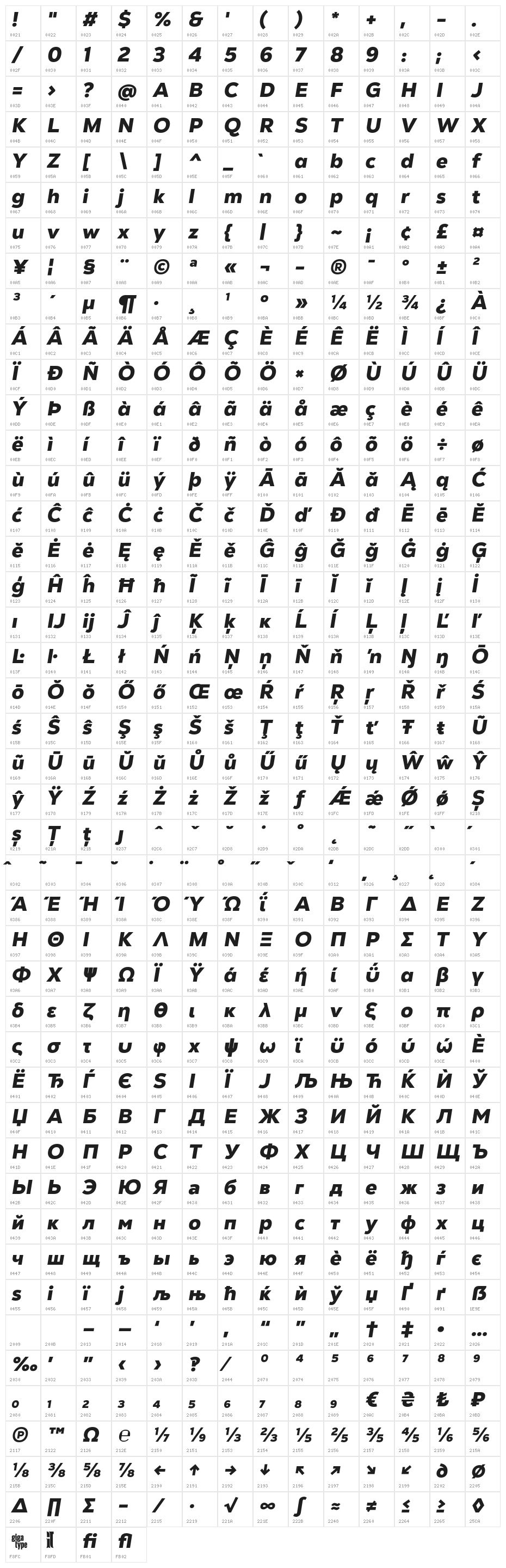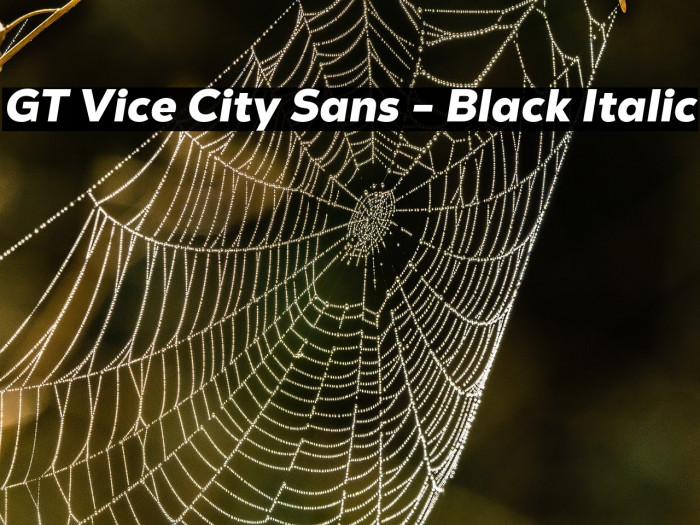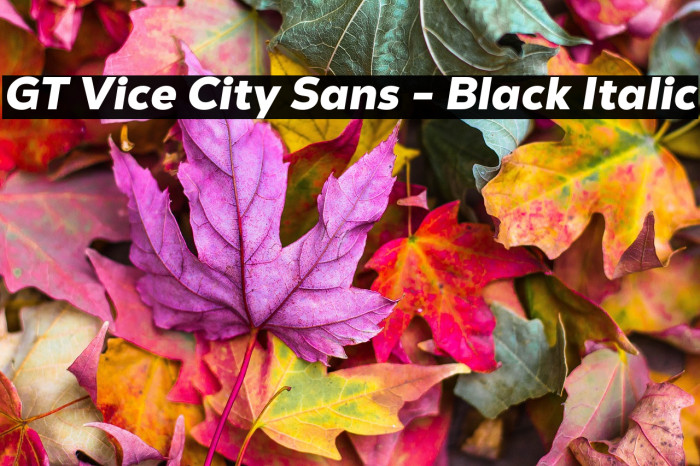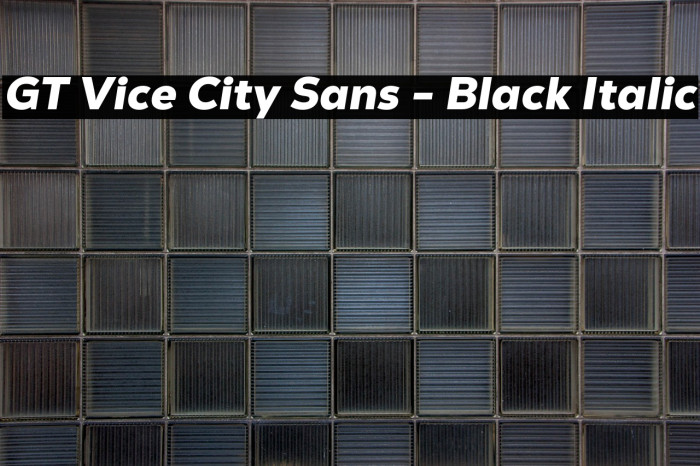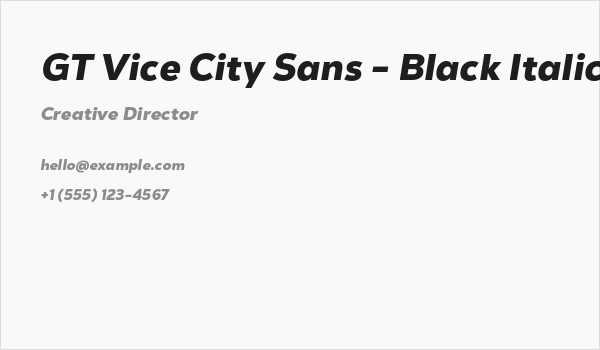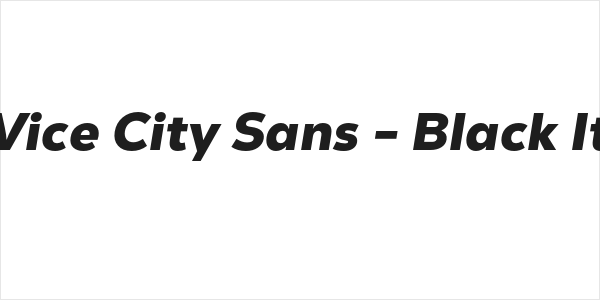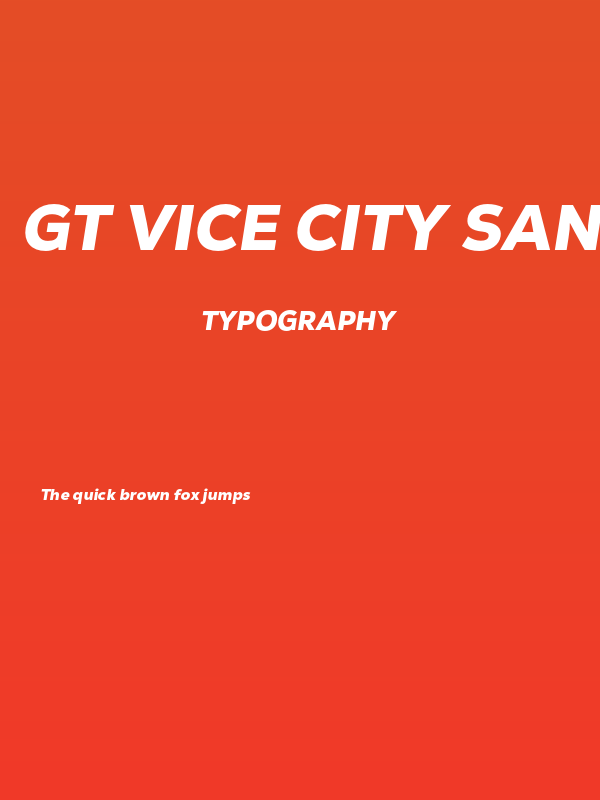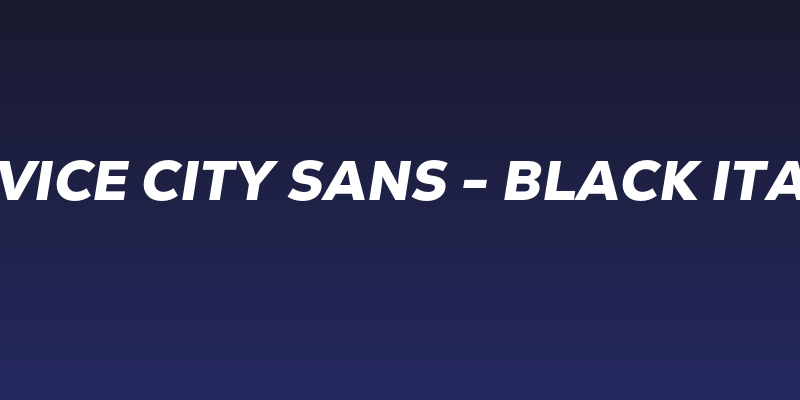
GT Vice City Sans - Black Italic Font
A bold, italic sans-serif font with a modern and dynamic appearance, featuring strong geometric shapes and a slightly condensed width.